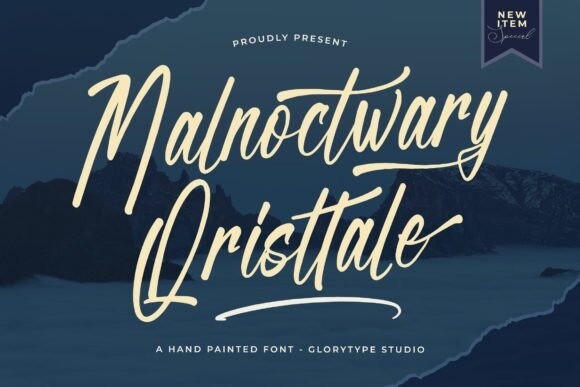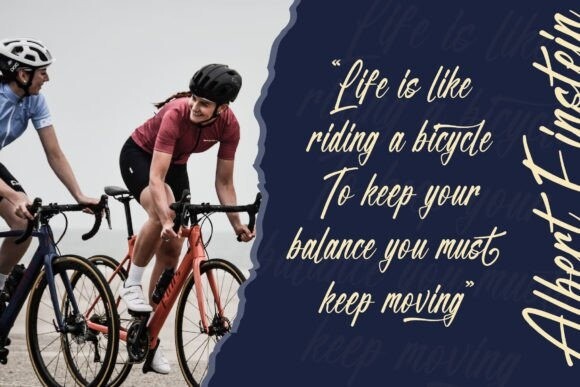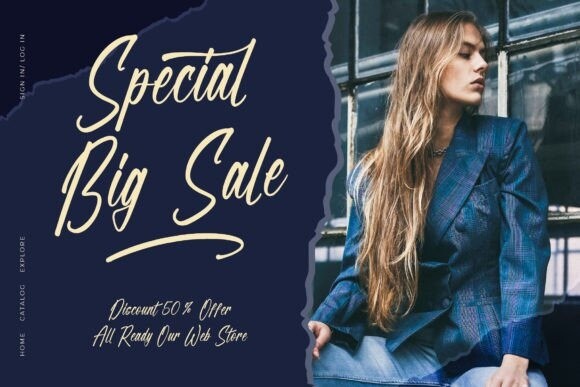
Malnoctwary Qristtale Font
Malnoctwary Qristtale – Hand Painted Font , from Glorytype Studio, suitable for any projects such as: logos, branding projects, homeware designs, product packaging, mugs, quotes, posters, shopping bags, t-shirts, book covers, name card, invitation cards, greeting cards, label, photography, watermark, special events, and all your other lovely projects that need a beautiful script taste.